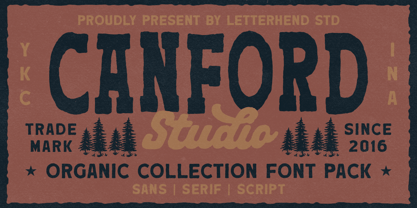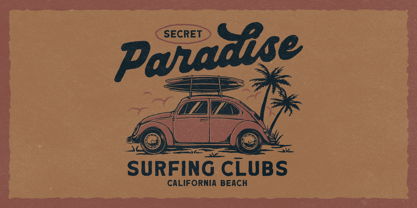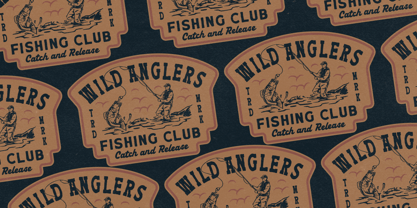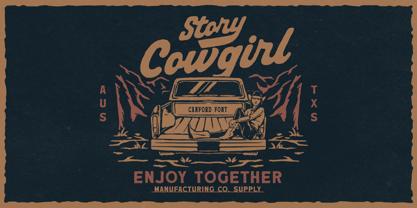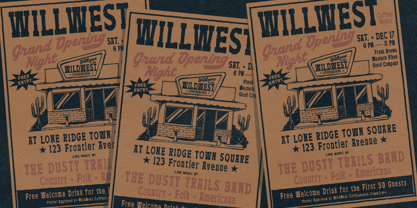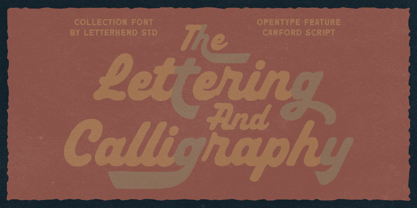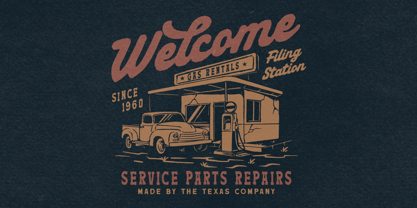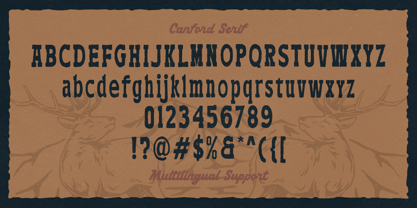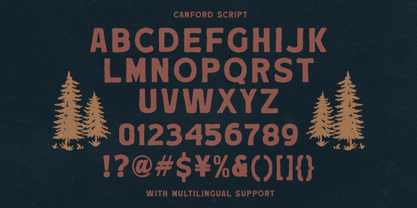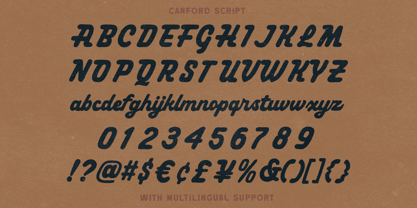
Canford
by Letterhend
The Canford Font Family was designed by Hendry Juanda and published by Letterhend. Canford contains 3 styles and family package options. More about this family
Canford brings a bold, rustic energy with its sturdy letterforms, weathered texture, and hand-hewn character that echoes classic outdoor badges and heritage craftsmanship. Its mix of strong block type and smooth script adds both grit and warmth, creating a timeless frontier vibes. Features : Uppercase & lowercase Numbers and punctuation Alternates & Ligatures Multilingual Support PUA encoded
Designers: Hendry Juanda
Foundry: Letterhend